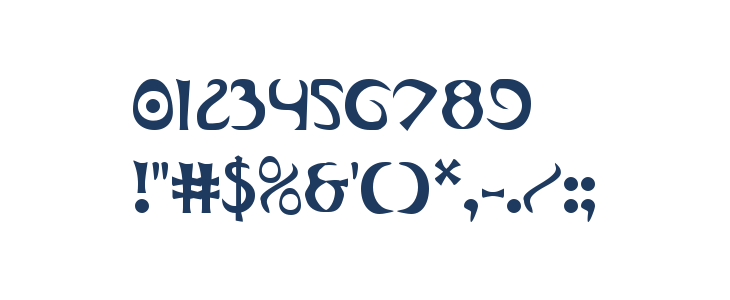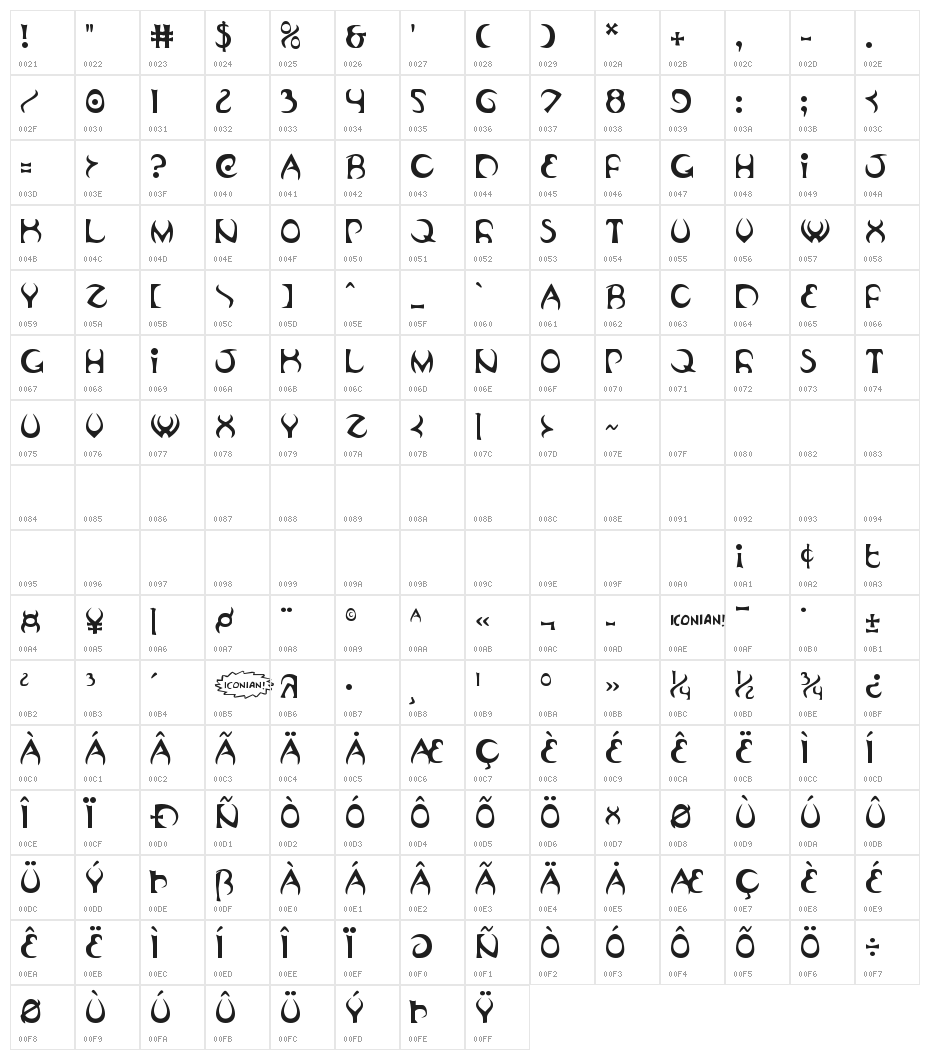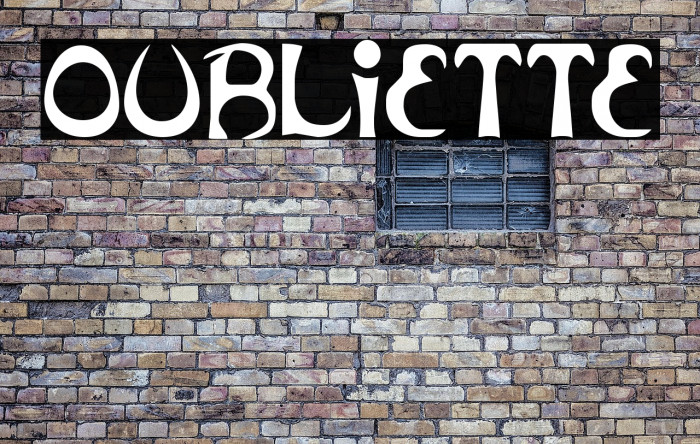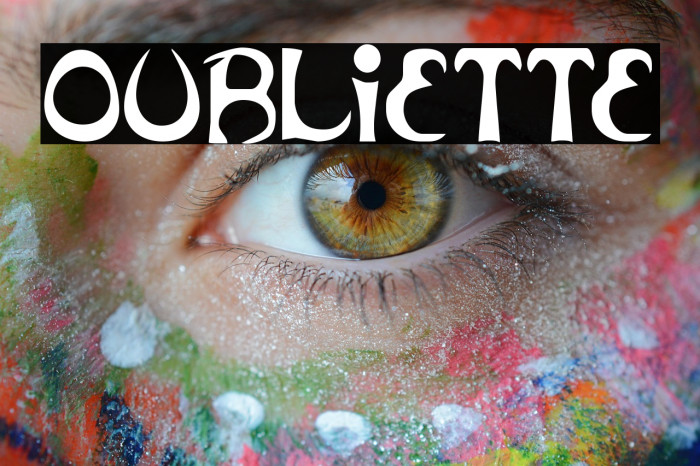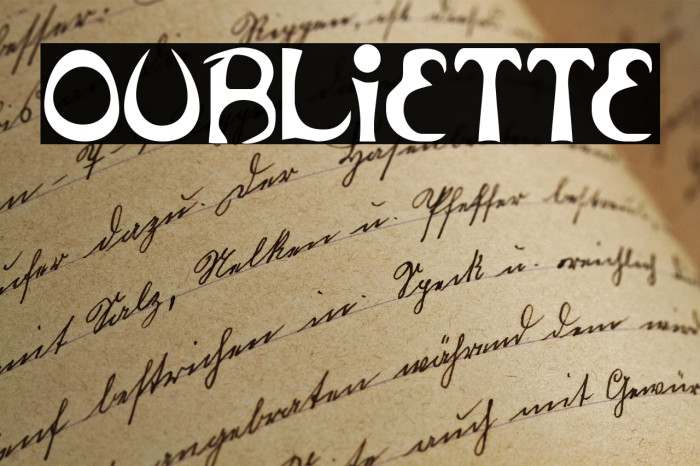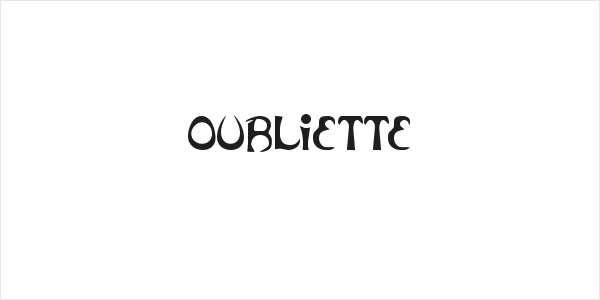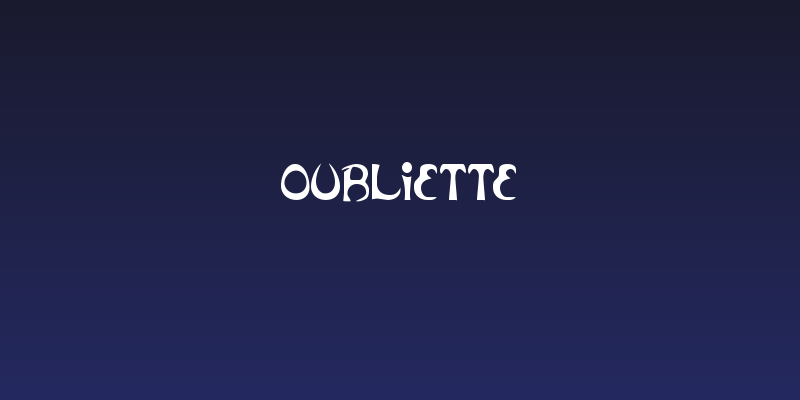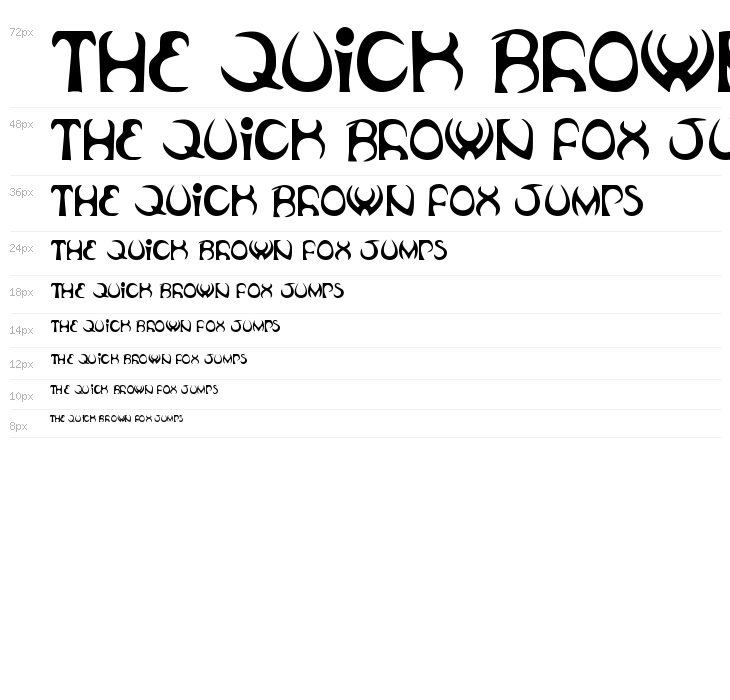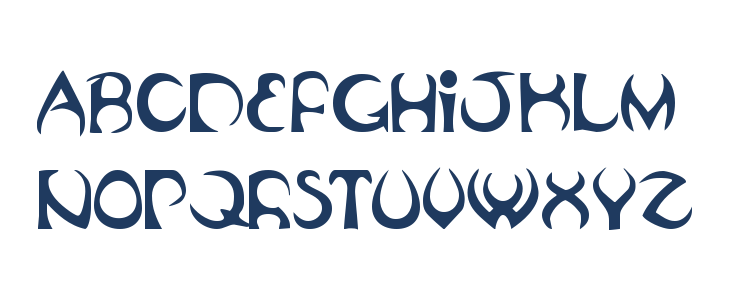
Oubliette Font
Oubliette Description
This font features a unique and artistic design with a strong decorative flair. The characters are bold and exhibit a high contrast between thick and thin strokes, giving them a dynamic and eye-catching appearance. The letters have a distinct curvature and angularity, creating a sense of movement and energy. The overall style is reminiscent of a modern take on traditional calligraphy, with a touch of fantasy or gothic influence. The numerals and special characters maintain the same stylistic elements, ensuring consistency across the typeface.